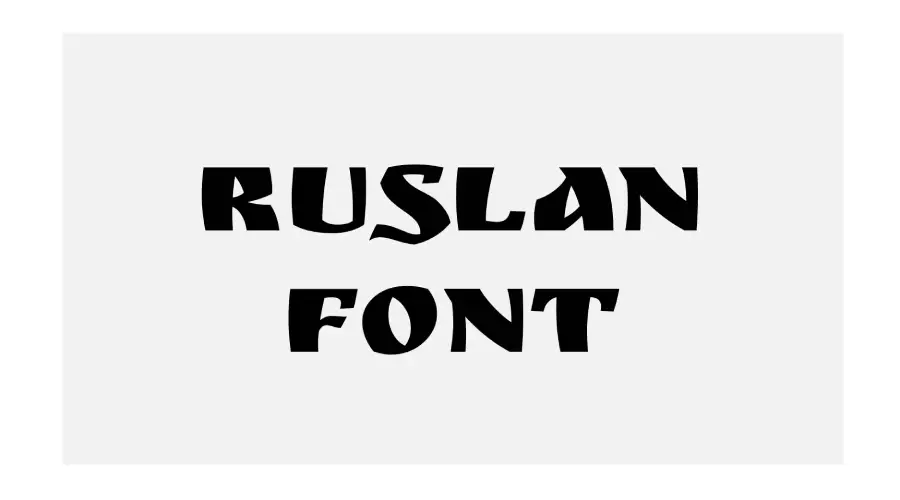
The Ruslan font was designed by Denis Masharov in collaboration with Vladimir Rabdu. The font is based on an ancient Russian script of the 16th century called “poluustav”. It is suitable for lettering and short texts.
The font characters include uppercase and lowercase alphabets, numbers, symbols, and special characters. It has a total of 450 defined characters and 236 unique glyphs. The weight of the font is 400. It supports more than 32 languages.
Ruslan Fonts are very suitable for logos, branding, invitations, stationery, wedding designs, invitations, logos, business cards, covers, shirts, social media posts, and more. It will also be used to create an awesome image, text with various types of colors and text.
Ruslan Font
Ans:Â The font is designed by Dennis Masharov.